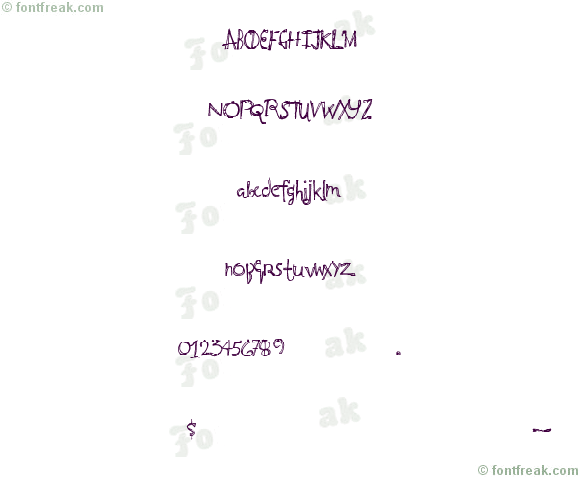
FreshWaters
About FreshWaters
FreshWaters by Xerographer Fonts is a captivating handwritten font that brings a sense of whimsy and fluidity to any design project. Released in 2015, this freeware font is characterized by its playful strokes and organic forms, which mimic the natural flow of water. The design features a medium stroke weight with a slight contrast that adds depth without overwhelming the viewer. The letters are spaced comfortably, ensuring readability while maintaining a casual and inviting tone. Decorative elements are integrated throughout the typeface, giving it a unique personality that sets it apart from standard fonts.
The FreshWaters font is ideal for a variety of creative applications. Its charming style makes it a perfect choice for wedding invitations, where a touch of elegance is desired, as well as for children’s book covers, where a fun and engaging appearance can captivate young readers. Additionally, it works wonderfully for restaurant menus, especially those focusing on fresh, organic cuisine, as it evokes a sense of nature and vitality. Graphic designers will find this font particularly useful for branding projects aimed at eco-friendly businesses, as it effectively communicates a commitment to sustainability.
Targeted at graphic designers, small business owners, and content creators, FreshWaters provides an excellent opportunity to add a distinct flair to various projects. Its versatility allows it to be used in both print and digital formats, making it a valuable addition to any designer’s toolkit. The FreshWaters font free download offers an accessible way to enhance your creative work without sacrificing quality. In a world filled with generic typefaces, FreshWaters stands out for its unique charm and ability to infuse projects with a sense of playfulness and warmth, making it a go-to choice for those seeking to make a lasting impression.